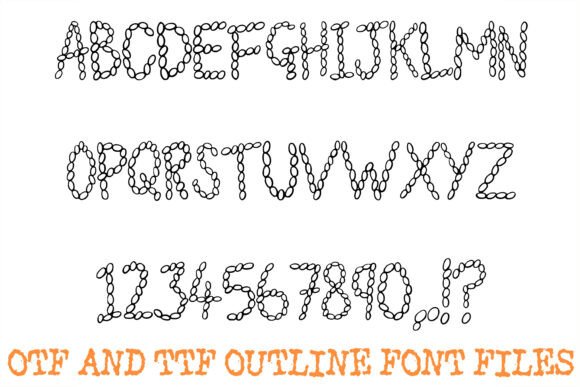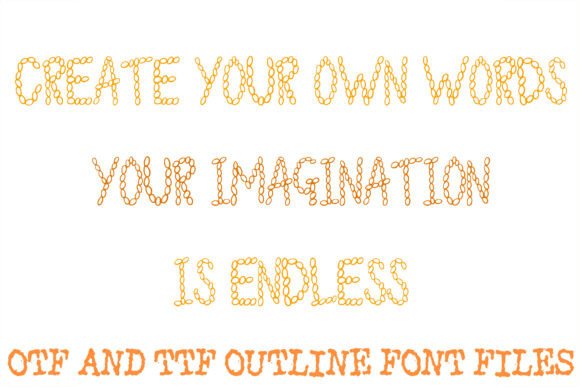
Introduction to Baked Beans Font
Bring a quirky, flavorful energy to your designs with the Baked Beans Font.
This highly creative display typeface is constructed entirely from individual, hand-drawn bean shapes, giving each letter and number a fun, “saucy” texture It is an ideal choice for food-themed branding, kitchen decor, BBQ party invitations, and any project that needs a humorous, high-impact look.